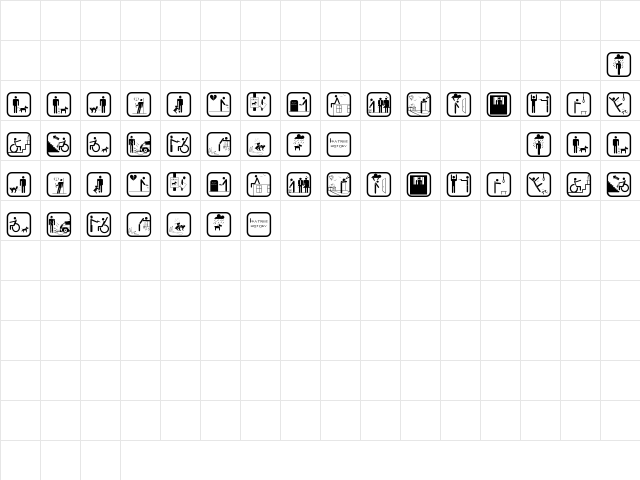
Stickerman bad times Regular
Designer: kaiserzharkhan
Design Context for Stickerman bad times
Stickerman bad times is a composed and adaptable typeface that performs quietly and consistently across a wide range of design contexts.